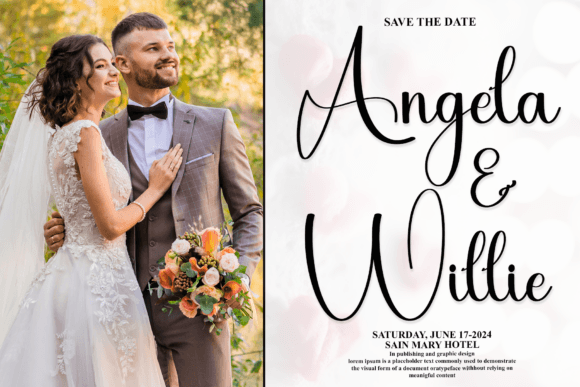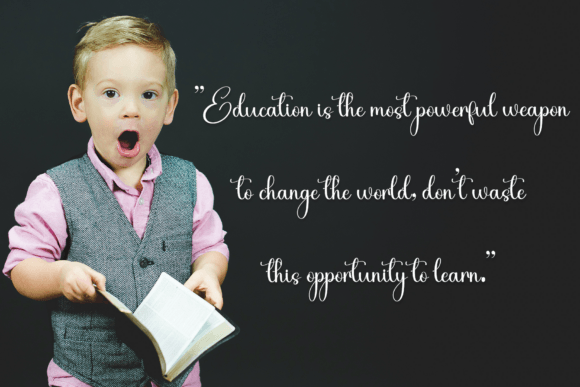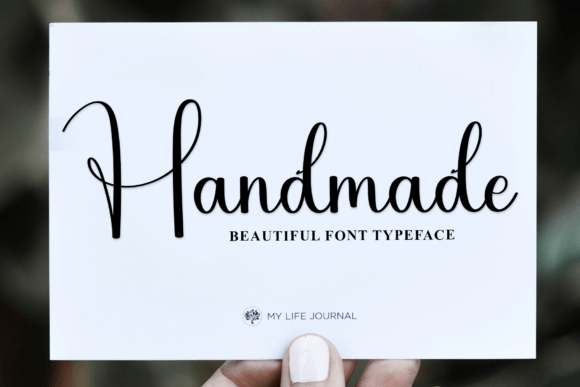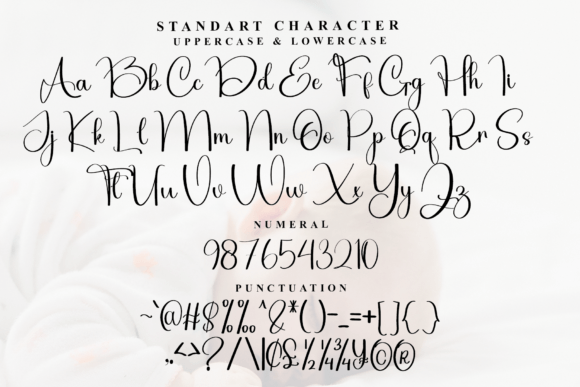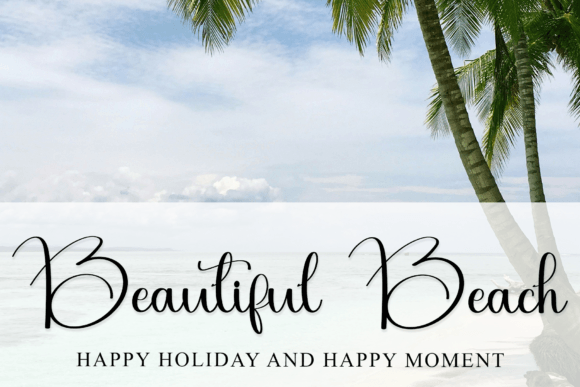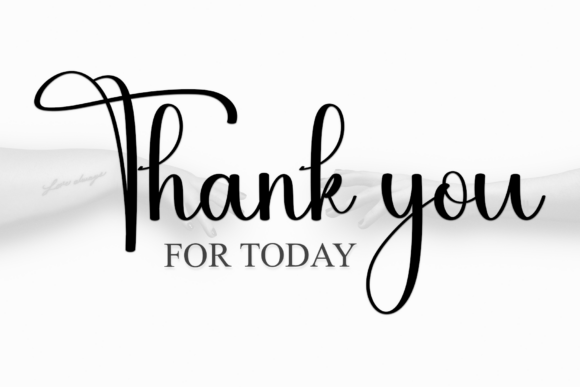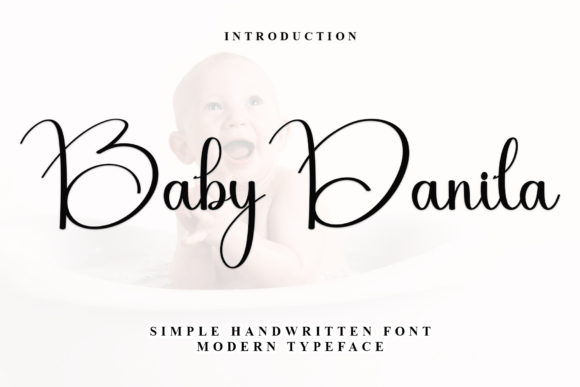
Baby Danila Font: The Perfect Handwritten Font for Your Creative Projects
Baby Danila is a beautiful, light, and playful handwritten font that is sure to capture the hearts of designers, crafters, and anyone looking for a personal touch in their creative projects. This lovely font is characterized by its thin, cute letters that exude a warm and friendly feel, making it an excellent choice for a variety of applications, including cards, invitations, and more.
The Charm of Baby Danila Font
What sets Baby Danila apart from other fonts is its unique, hand-drawn appearance. Each letter is carefully crafted to give the font a personal and intimate feel, as if it was written by hand. The thin lines and delicate curves of the letters create a sense of elegance and sophistication, while still maintaining a playful and whimsical touch.
Baby Danila font is incredibly versatile and can be used in a wide range of creative projects. Whether you’re designing a card, invitation, or any other type of project that requires a personal touch, this font is sure to deliver. Its light and playful feel makes it perfect for:
- Cards: Use Baby Danila to create beautiful, one-of-a-kind cards for special occasions, such as birthdays, weddings, and holidays.
- Invitations: Add a personal touch to your invitations with Baby Danila’s elegant and playful script.
- Stationery: Create custom stationery, such as notebooks, journals, and letterheads, with Baby Danila’s charming font.
- Crafting: Use Baby Danila to add a personal touch to your crafting projects, such as scrapbooking, DIY home decor, and more.
Why Designers and Crafters Love Baby Danila Font
Designers and crafters alike love Baby Danila font for its unique and versatile characteristics. Here are just a few reasons why:
- Ease of use: Baby Danila font is easy to read and works well in a variety of sizes, making it perfect for both digital and print applications.
- Customization: The font’s thin lines and delicate curves make it easy to customize and pair with other fonts to create a unique look.
- Emotional connection: Baby Danila’s personal and intimate feel creates an emotional connection with the reader, making it perfect for projects that require a personal touch.
Tips for Using Baby Danila Font
To get the most out of Baby Danila font, here are a few tips to keep in mind:
- Pair with other fonts: Experiment with pairing Baby Danila with other fonts to create a unique and visually appealing look.
- Use in combination with images: Combine Baby Danila with images or illustrations to add a personal touch to your projects.
- Experiment with colors: Try out different colors and textures to add depth and interest to your projects.
In conclusion, Baby Danila font is a beautiful, light, and playful handwritten font that is perfect for designers, crafters, and anyone looking to add a personal touch to their creative projects. Its unique, hand-drawn appearance and versatile characteristics make it an excellent choice for a wide range of applications, from cards and invitations to stationery and crafting projects. With its ease of use, customization options, and emotional connection, Baby Danila font is sure to become a favorite in your design arsenal.